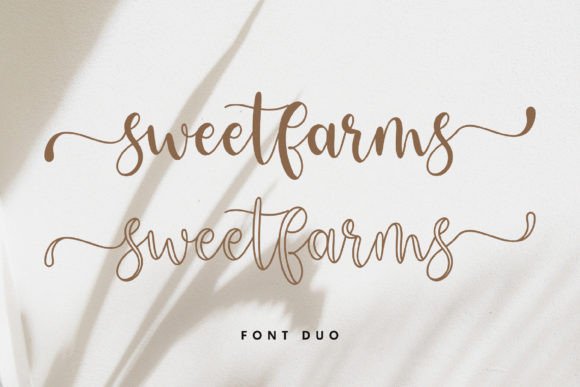
Feast your eyes on Sweetfarms Font, the epitome of elegance and seduction that will transform your designs into a visual symphony. This font duo, hailing from the creative genius of byemalkan, is a true masterpiece that enchants with its curvaceous letterforms and subtle sensuality.
Immerse yourself in the allure of Sweetfarms, where every character dances across the page with grace and fluidity. Its enchanting curves and perfectly balanced strokes create an atmosphere of luxury and sophistication, making it the ideal choice for crafting captivating headlines, branding materials that exude opulence, and packaging that whispers promises of indulgence.
With Sweetfarms Font, you'll unveil a secret weapon for making your projects stand out. Its unique charm and an air of mystique will captivate your audience, evoking a sense of forbidden pleasure. Unleash your creativity and watch as this font transforms your designs into irresistible temptations.
Join the ranks of discerning designers who have embraced Sweetfarms Font, the ultimate choice for those seeking a touch of indulgence and exclusivity. Let your imagination run wild as you explore the endless possibilities of this font, and witness how it elevates your designs to new heights of sophistication and allure.